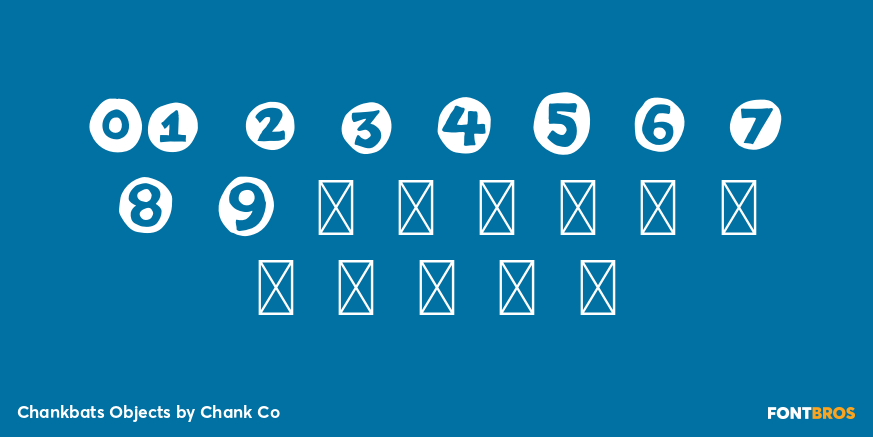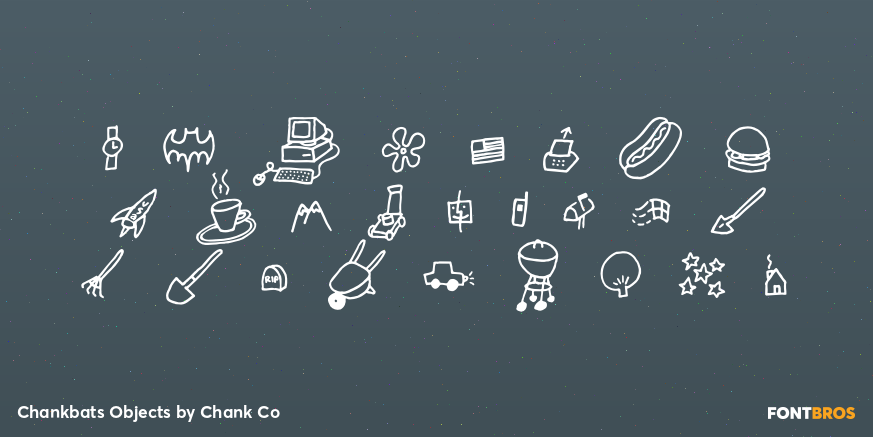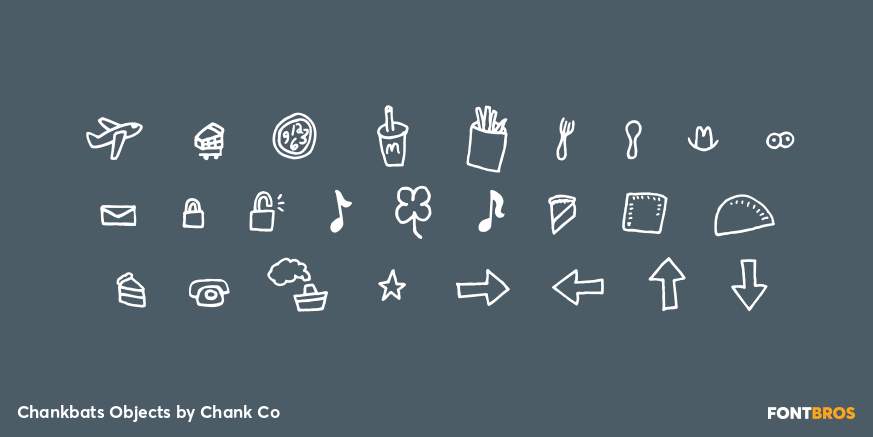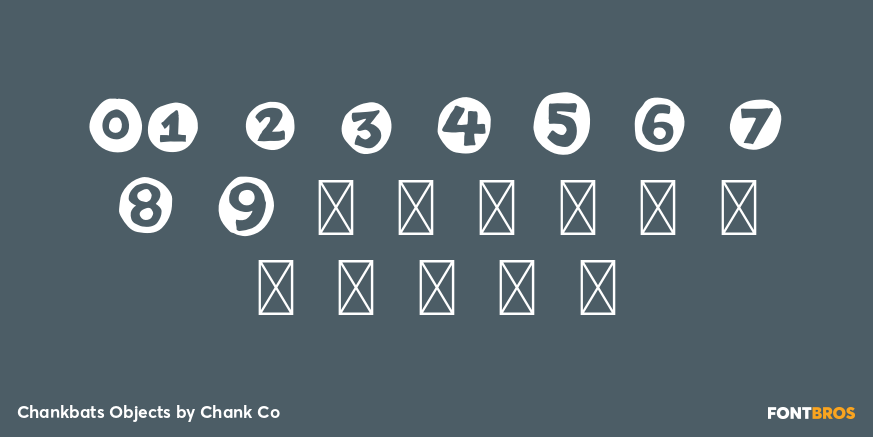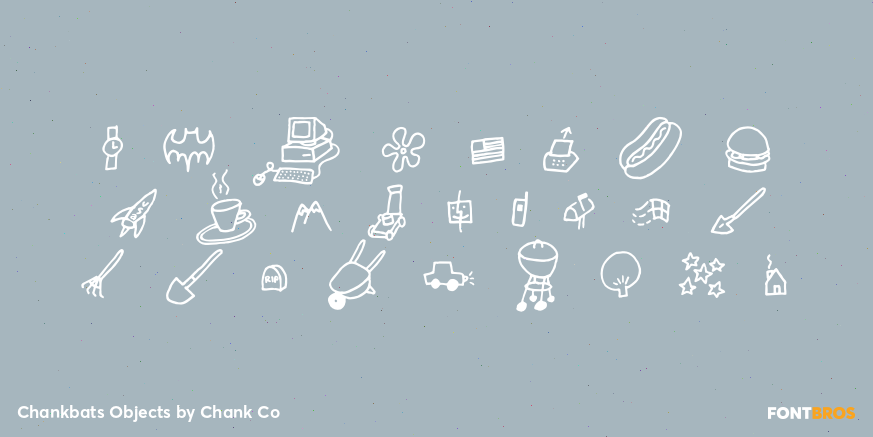
Chankbats Objects
Font Family by Chank Co
Chankbats Critters are based upon the original drawings of artist Chank Diesel. Insert these nifty little doodles into your layouts when you feel an illustrator's touch would add personality to your designs, or when you want a nice little horsie picture to break up the grayness of a long text passage. We trust you'll come up with a clever use for these whimsical, folk art drawings.